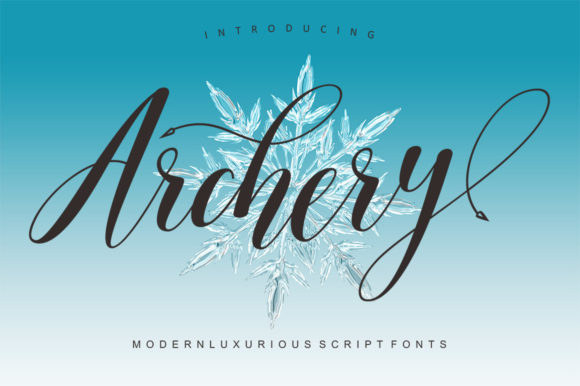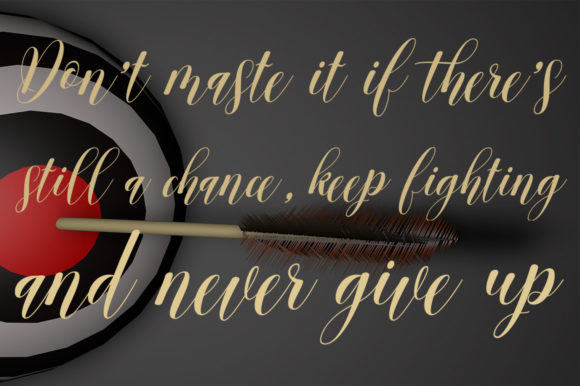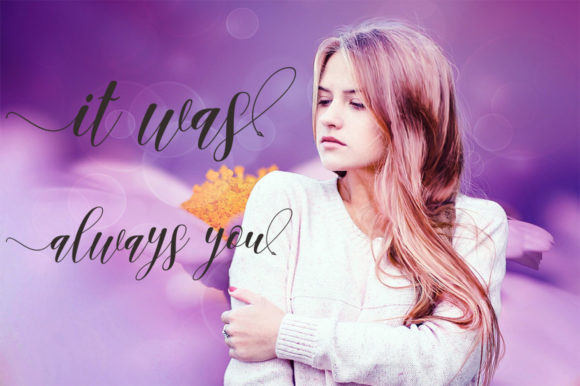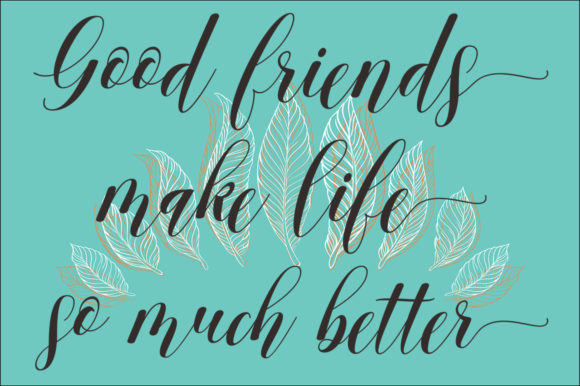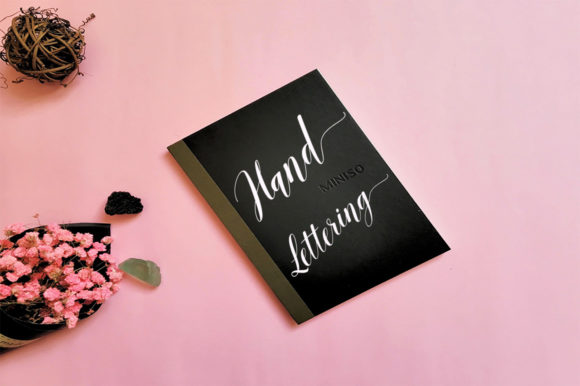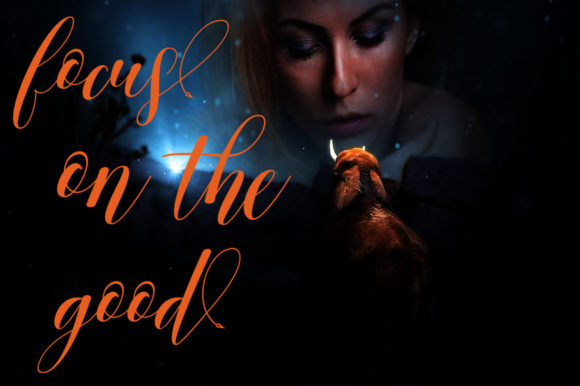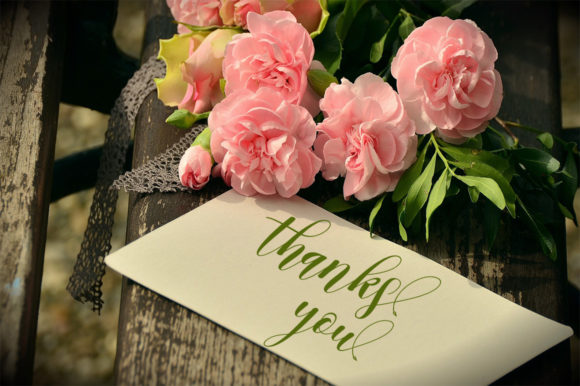
Archery Script Font
About Archery Script Font
Archery is a beautiful and timeless script font with a classic vibe. Get inspired by its beautiful feel, and turn any design project into a stand out!